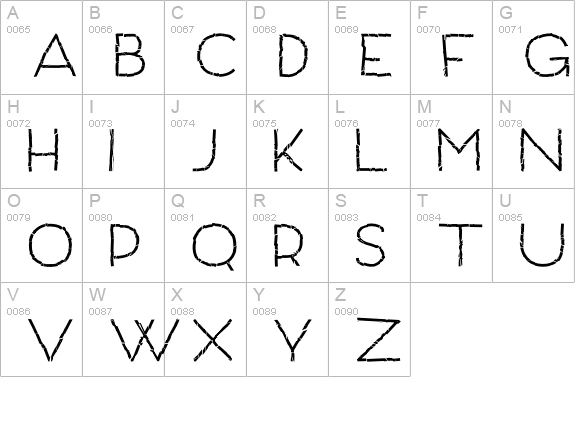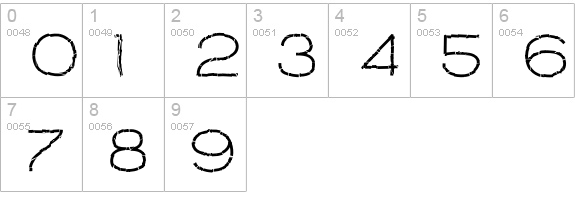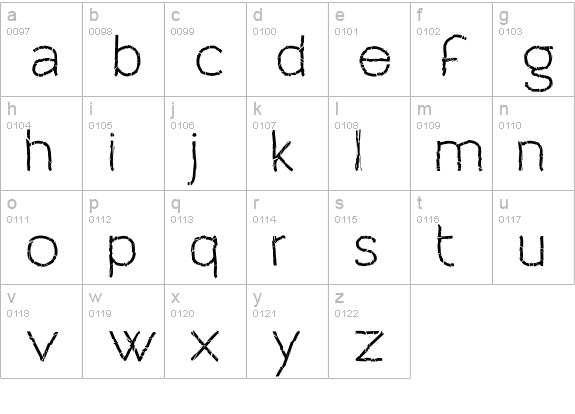
Archivio Crashed font is a unique and edgy typeface that exudes a sense of rebelliousness and creativity. Inspired by the chaotic beauty of a crashed computer system, this font features jagged edges and distorted letterforms that make a bold statement in any design project. Despite its unconventional appearance, Archivio Crashed font is surprisingly versatile and can be used for a wide range of design applications, from posters and album covers to branding and digital art. Its distinct look adds a touch of avant-garde flair to any project, making it perfect for those looking to stand out from the crowd. What's even better is that Archivio Crashed font is completely free to download at FontsMarket.com. This means that you can unleash your creativity without any cost barriers, making it accessible to designers, artists, and creatives of all kinds. Don't miss out on the opportunity to add this one-of-a-kind font to your collection and elevate your designs to new heights.